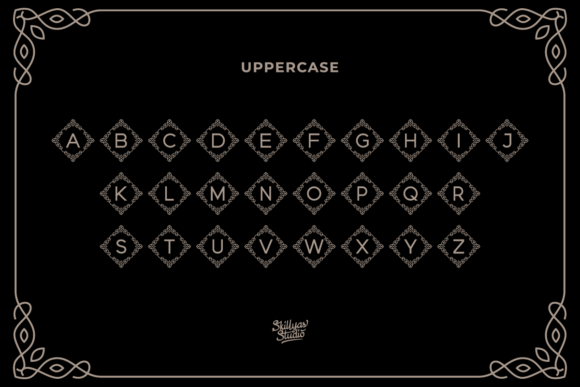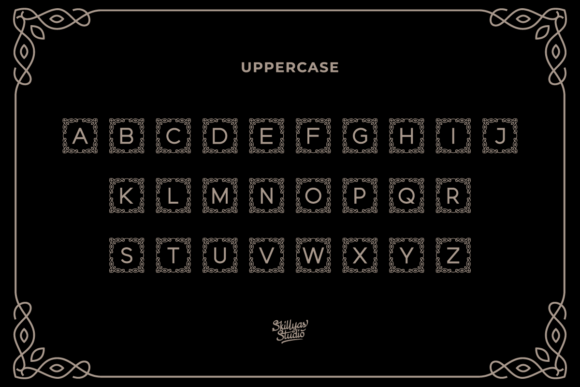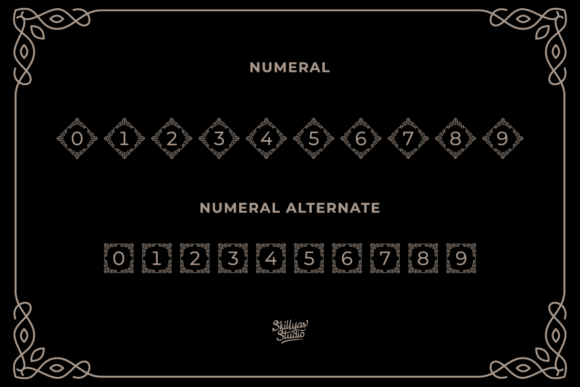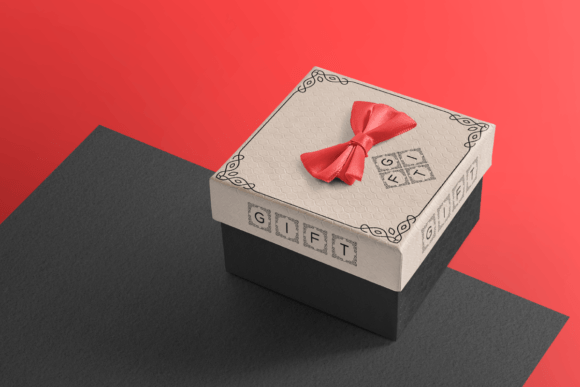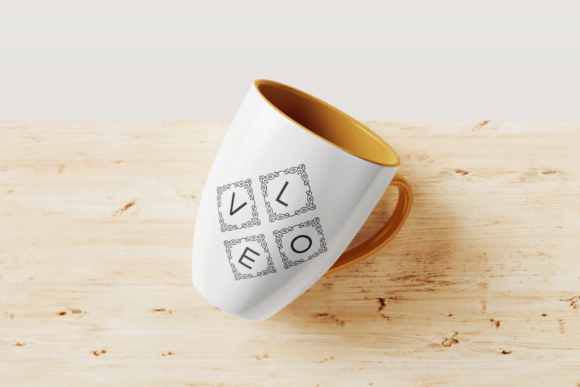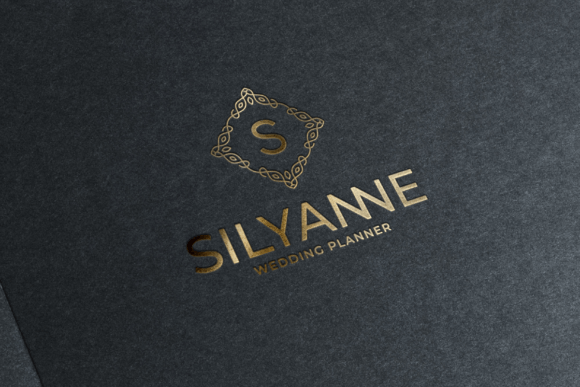
Introduction to Rootinalist Monogram Font
Have you ever found yourself staring at a blank canvas, desperately seeking the perfect font to bring your creative project to life? As a designer, we’ve all been there – the thrill of exploring endless options, only to settle for something that just doesn’t quite fit the bill. But what if I told you that there’s a game-changing design resource waiting to be discovered? Enter the Rootinalist Monogram Font, a timeless masterpiece that promises to elevate your designs to new heights.
With its high-quality, intricately designed letters, this font is a treasure trove of creative possibilities. Whether you’re working on a luxurious logo, a wedding invitation, or a high-end brochure, the Rootinalist Monogram Font is the perfect tool to add a touch of sophistication and elegance. And the best part? It’s available for free download, complete with a transparent background, making it easy to integrate into any design project.
As a valuable addition to any designer’s toolkit, the Rootinalist Monogram Font is a must-have for anyone looking to take their creative projects to the next level. So why settle for ordinary when you can have extraordinary? Discover the magic of the Rootinalist Monogram Font and experience the thrill of creating truly unforgettable designs.
Key Features of Rootinalist Monogram Font
- High-quality design: The Rootinalist Monogram Font is crafted with precision and attention to detail, making it a valuable resource for any creative project.
- Transparent background: This font features a transparent background, allowing for seamless integration with any design element and providing flexibility for designers.
- Customizable: The Rootinalist Monogram Font is designed to be highly customizable, allowing users to easily modify the font to suit their specific design needs.
- Perfect for creative projects: The Rootinalist Monogram Font is ideal for use in a variety of creative projects, including branding, marketing materials, and digital design.
Honest Review: Rootinalist Monogram Font
I recently had the chance to work with the Rootinalist Monogram Font, and I must say it’s been a game-changer for my creative projects. This high-quality font is perfect for designers looking for a unique touch in their designs.
- ✨ The font is incredibly versatile and can be used for a wide range of designs, from logos to invitations.
- ✨ The transparent background option is a great feature, allowing for seamless integration with other design elements.
- ⚠️ The font may not be suitable for all types of designs, particularly those with complex typography.
- ⚠️ The font size and spacing may require some tweaking to get the perfect balance.
Overall, I’m thoroughly impressed with the Rootinalist Monogram Font. It’s a fantastic design resource that’s sure to elevate any creative project. With its high-quality design and transparent background option, it’s a must-have for any designer looking to take their work to the next level.
To get the most out of the Rootinalist Monogram Font, use it on a transparent background to create a beautiful, high-quality design. Experiment with different font sizes and styles to find the perfect combination for your project.
The Rootinalist Monogram Font is perfect for a variety of creative projects, including:
- Business logos and branding
- Personalized gifts and decorations